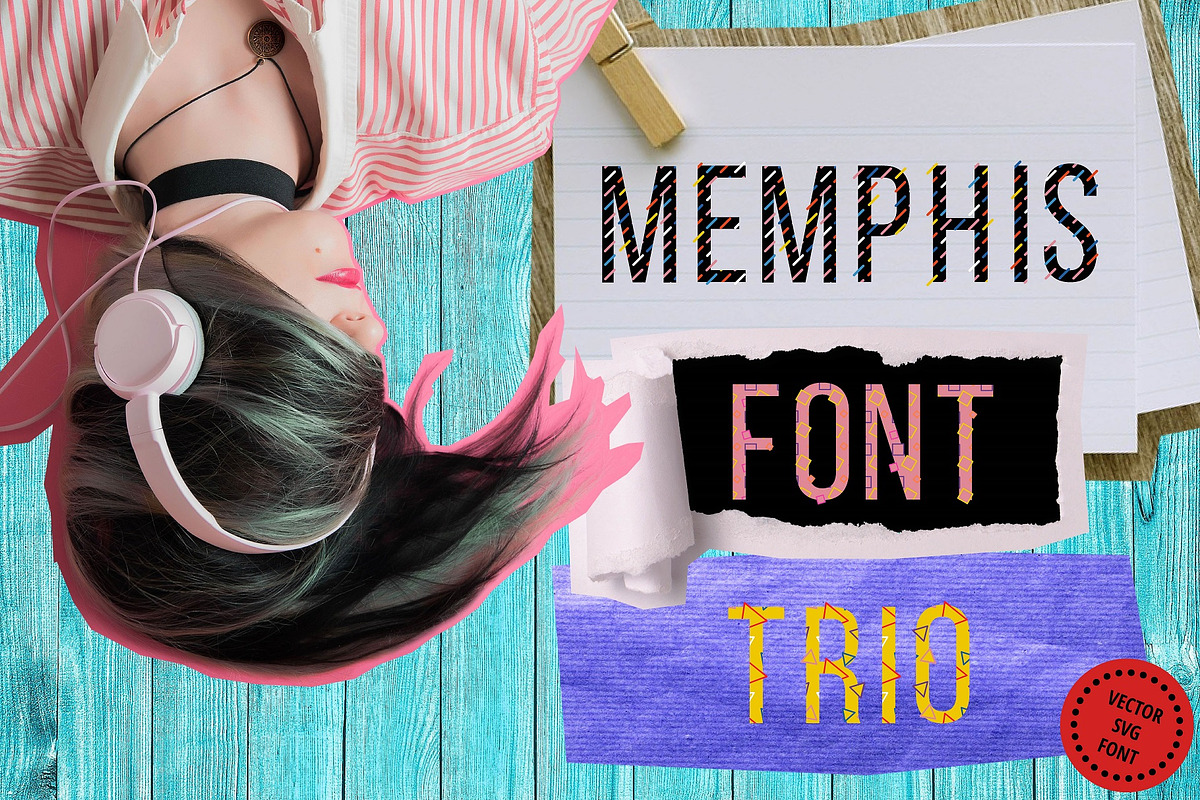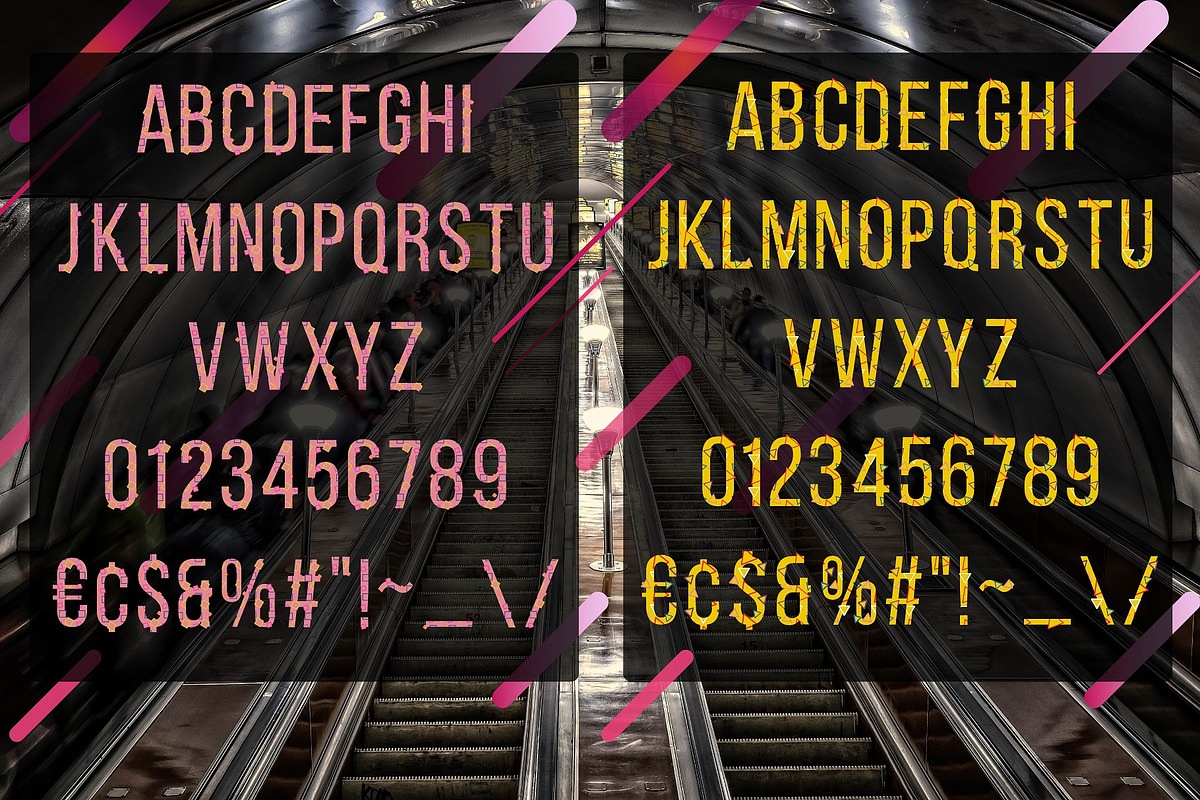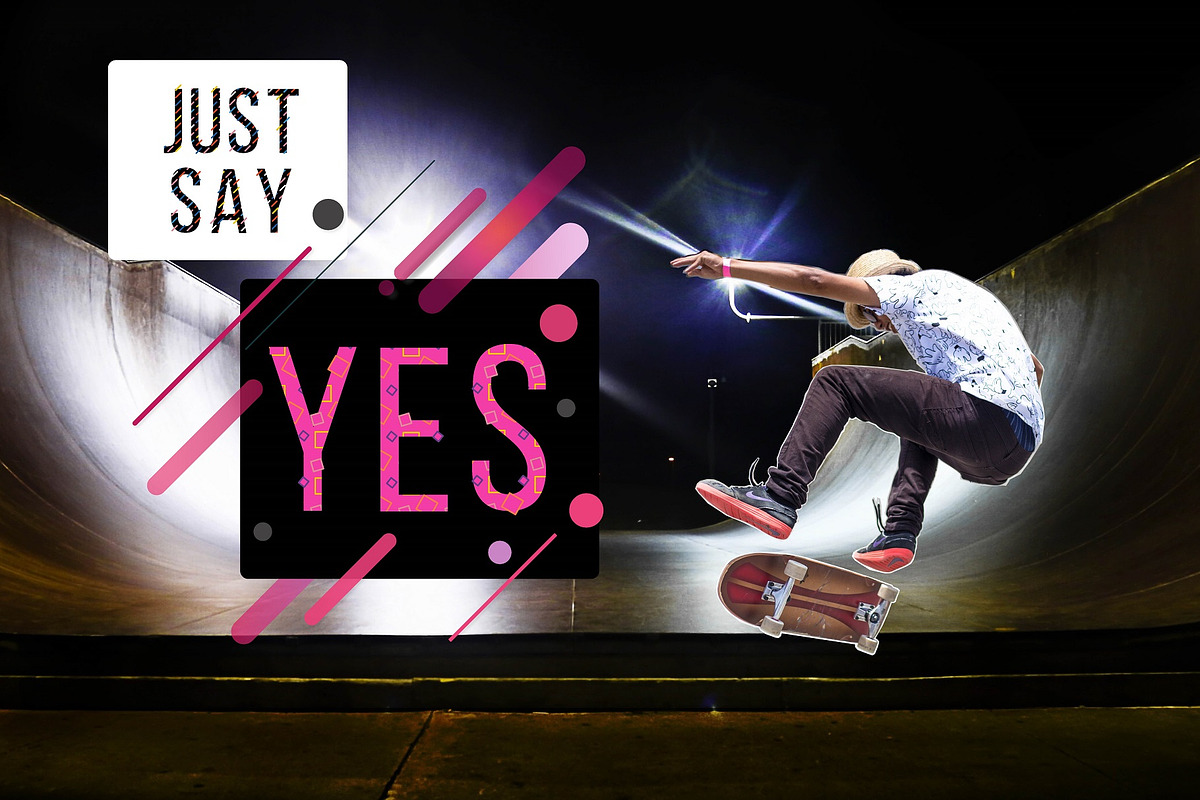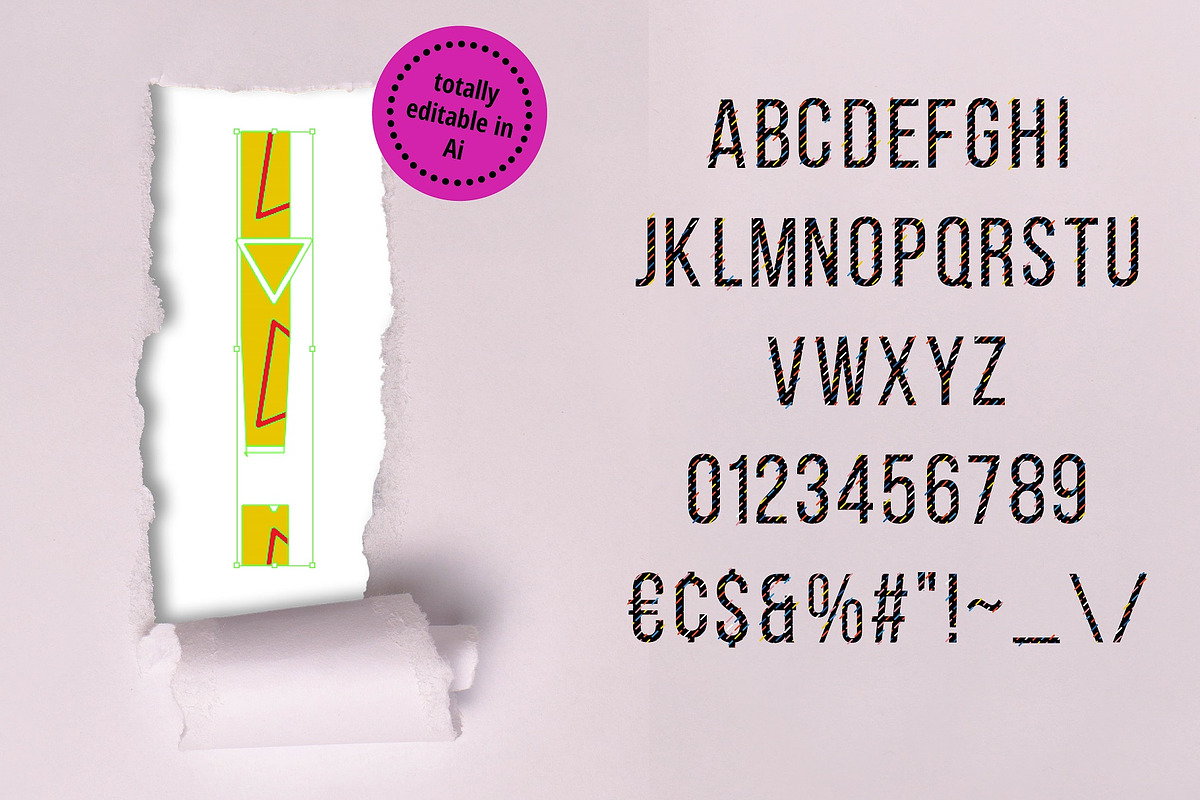
Memphis font trio
Memphis font trio is SVG vector fonts bundle that was made for vibrant and crazy prasentations and ads. You can edit colors and forms in Adobe Illustrator and add uniquiness to your design projects in seconds!
- That is exactly what You need for art projects, book covers, invitations, package design and advertising, and many more!